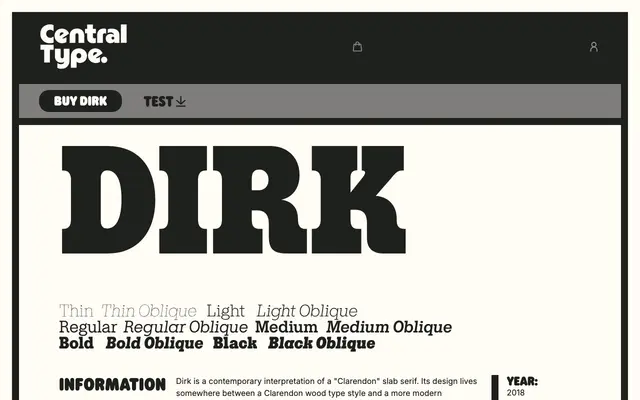
A sans-serif from Central Type with the restrained character of a working grotesque.
Dirk is a sans-serif typeface from Central Type. The page content did not provide sufficient detail to elaborate on its weights, language support or intended applications. Based on Central Type's catalogue, it sits within a tradition of considered, functional grotesque design.
Dirk appears to be a grotesque or neo-grotesque sans-serif, typical of Central Type's approach to contemporary workhorse typefaces with personality.